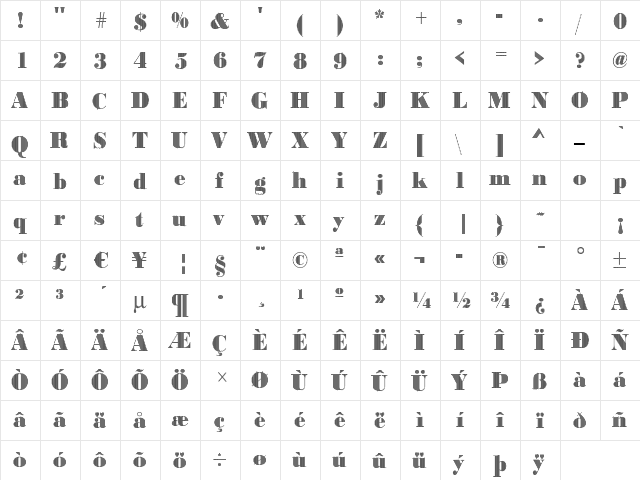
BodoniVert2 Regular
Design Context for BodoniVert2 Typeface
BodoniVert2 is a composed and adaptable typeface that performs quietly and consistently across a wide range of design contexts.